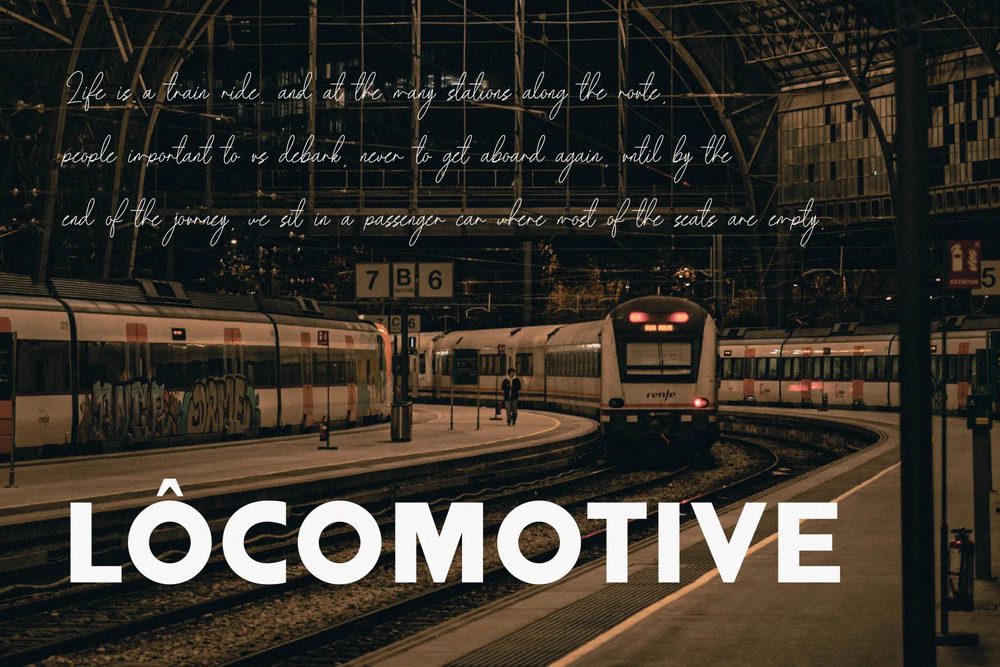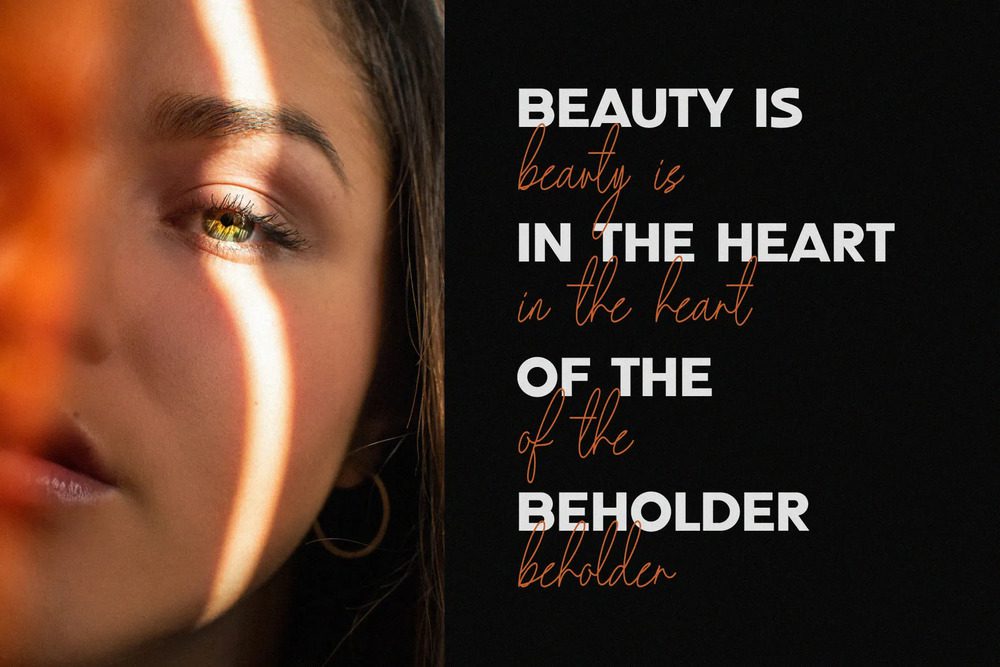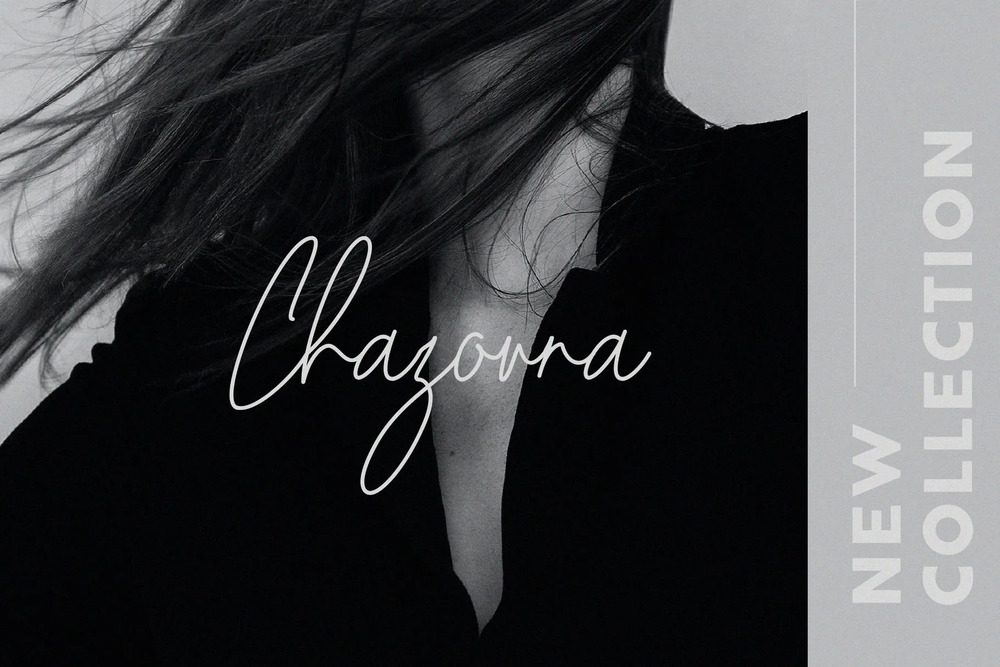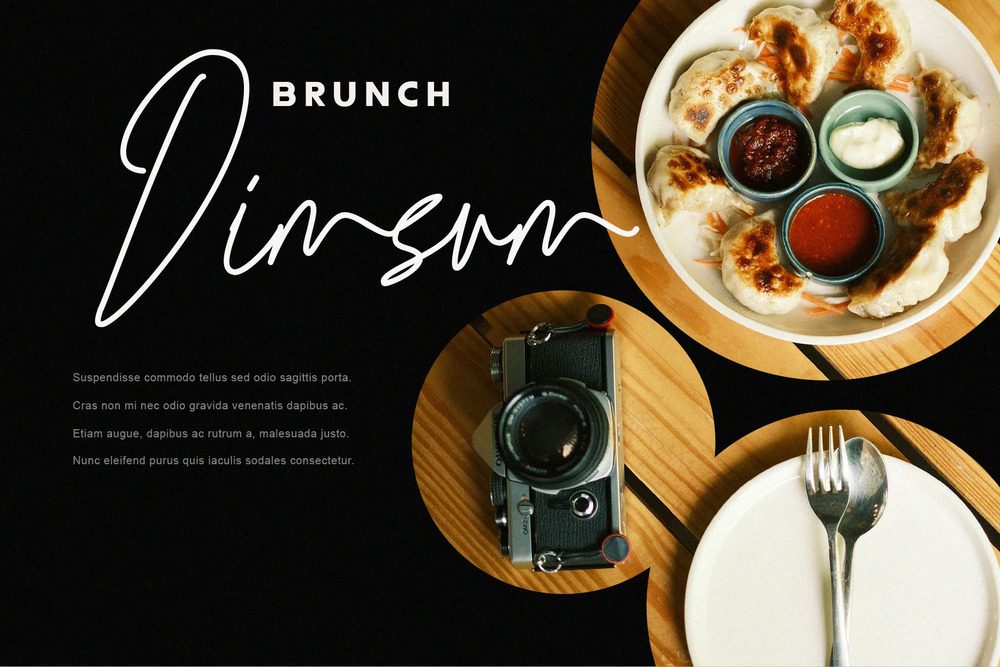
Beam Visionary Font
Beam Visionary is a duo of bold and soft typographic, sans serif fonts combined with signature script flow so they can provide a beautiful and eye-catching mix in logos, posters, wedding invitations, blog posts, social media, and more.!